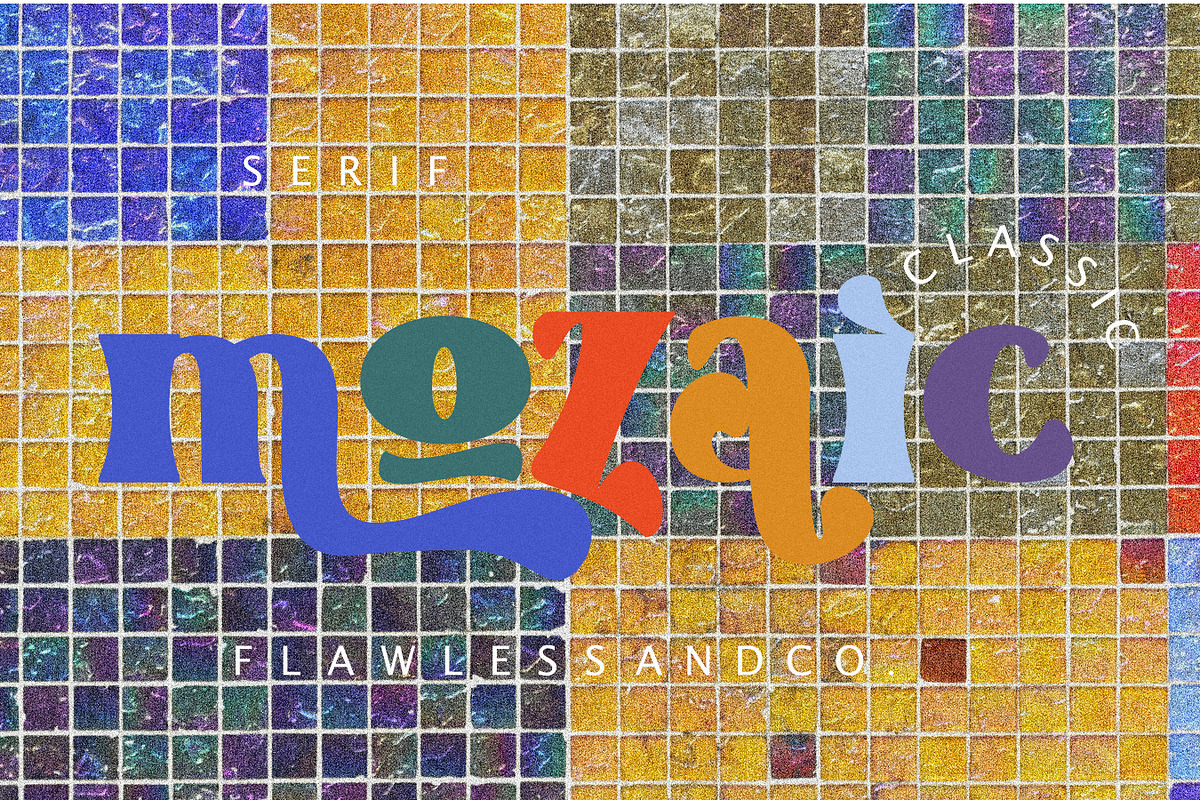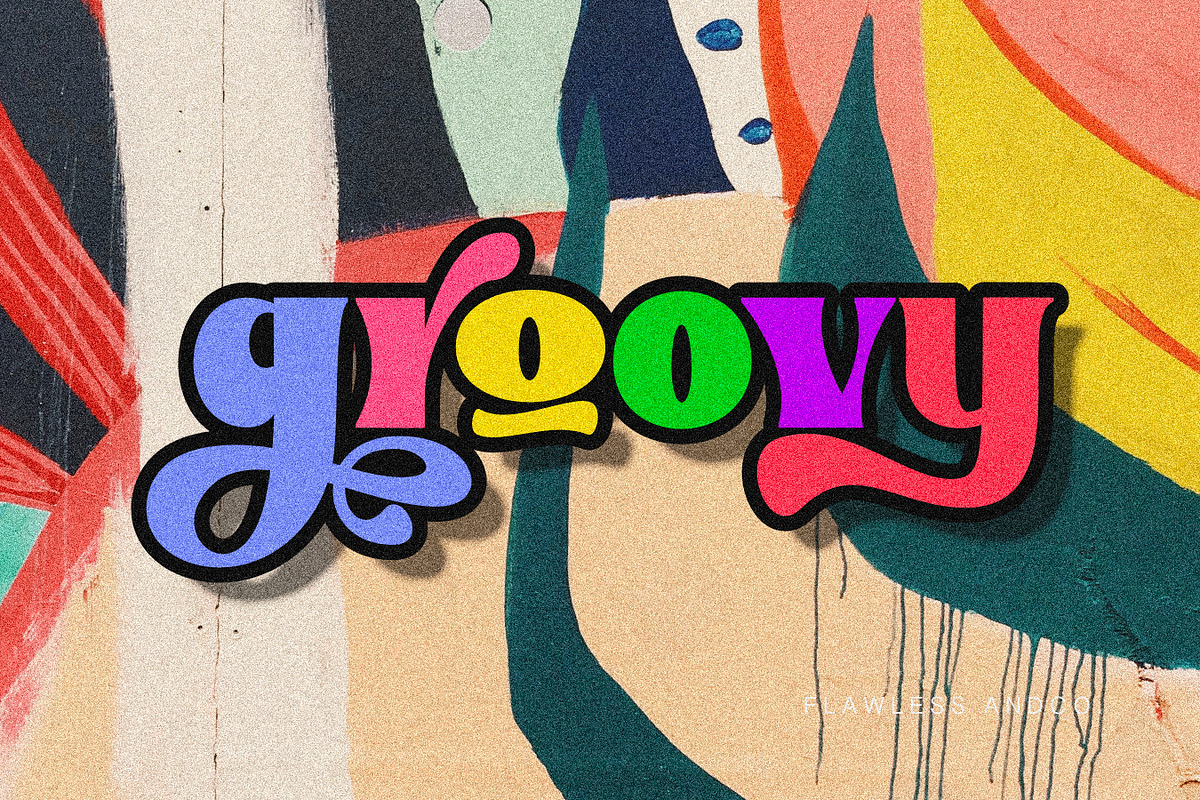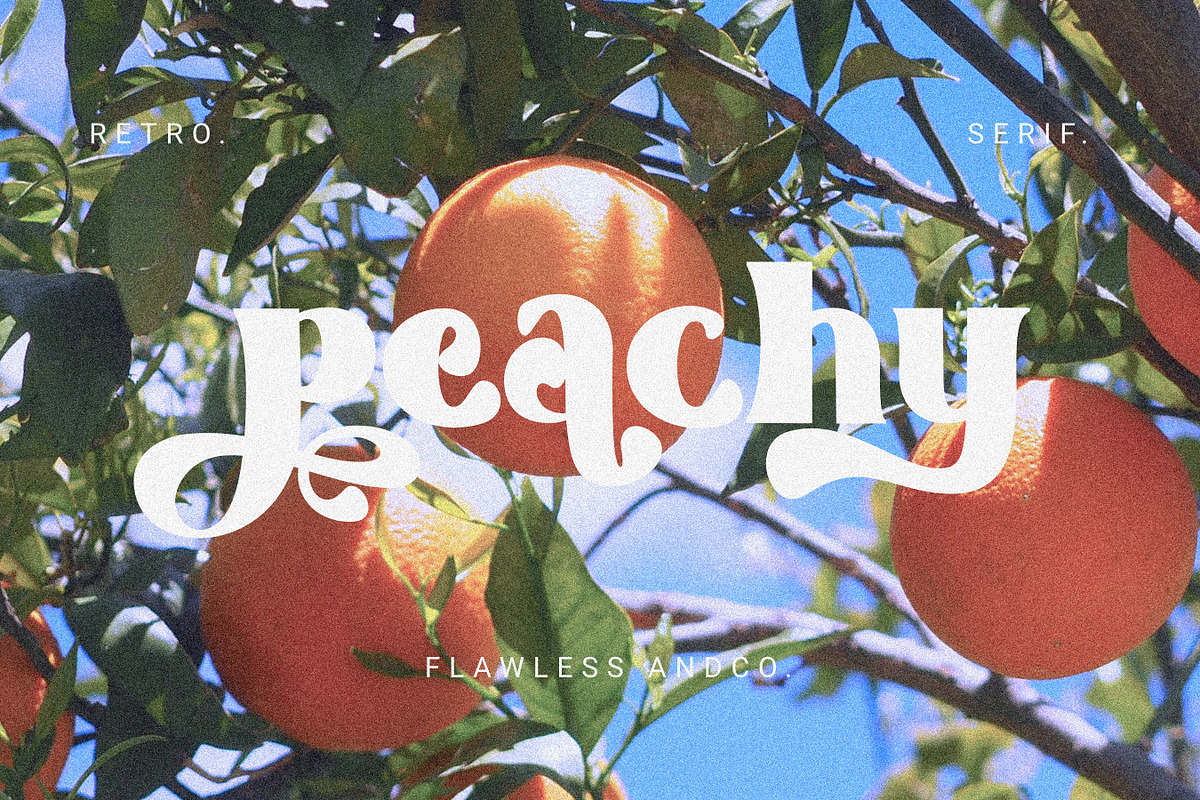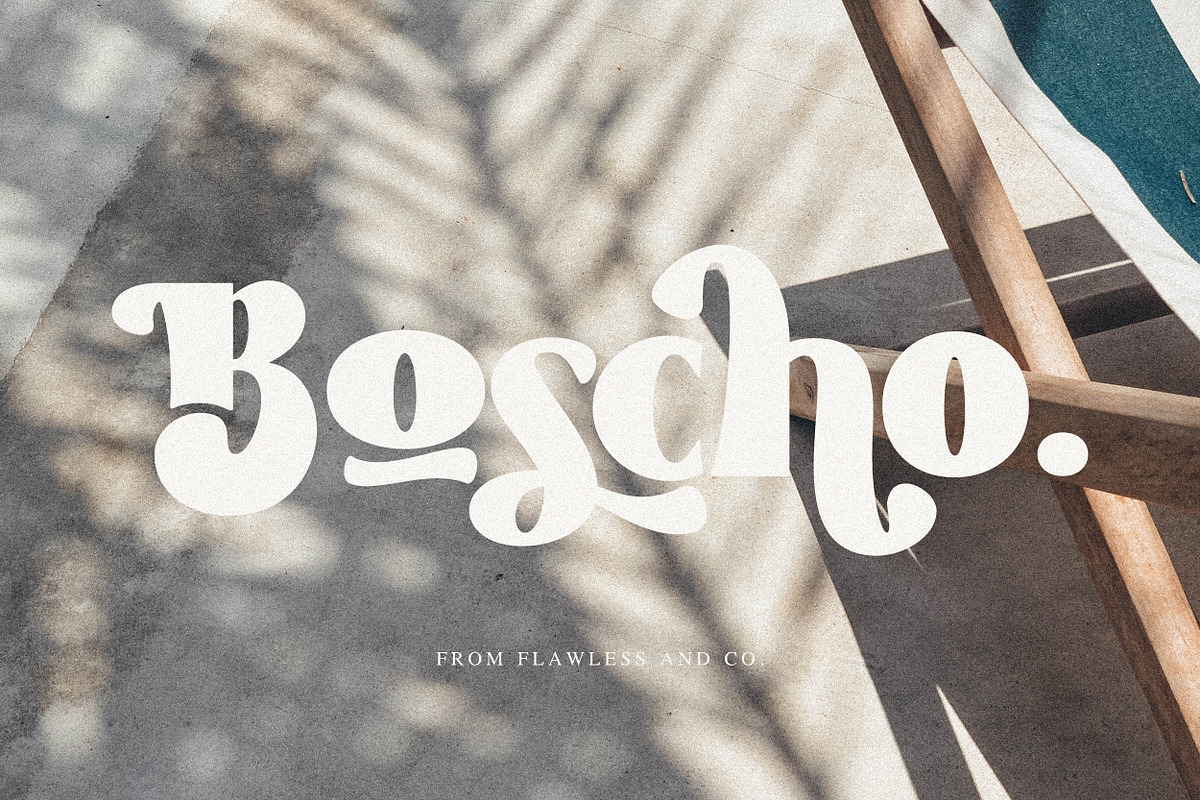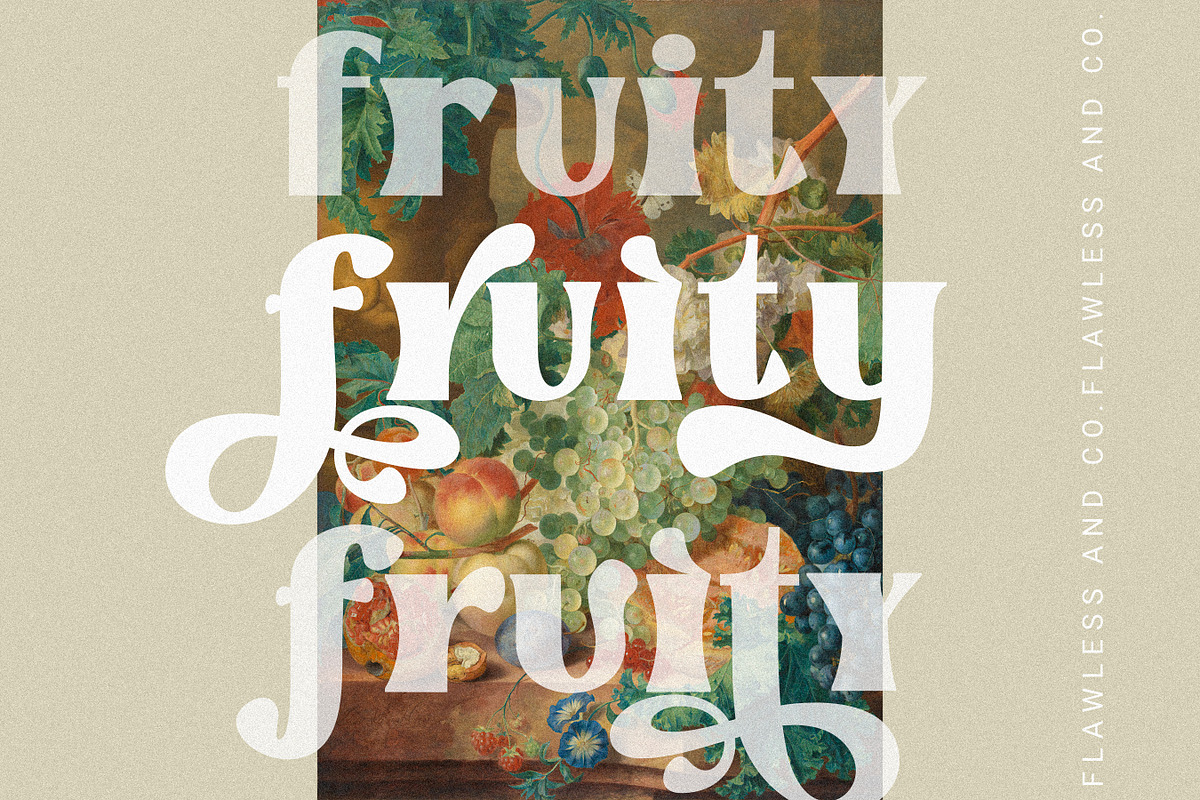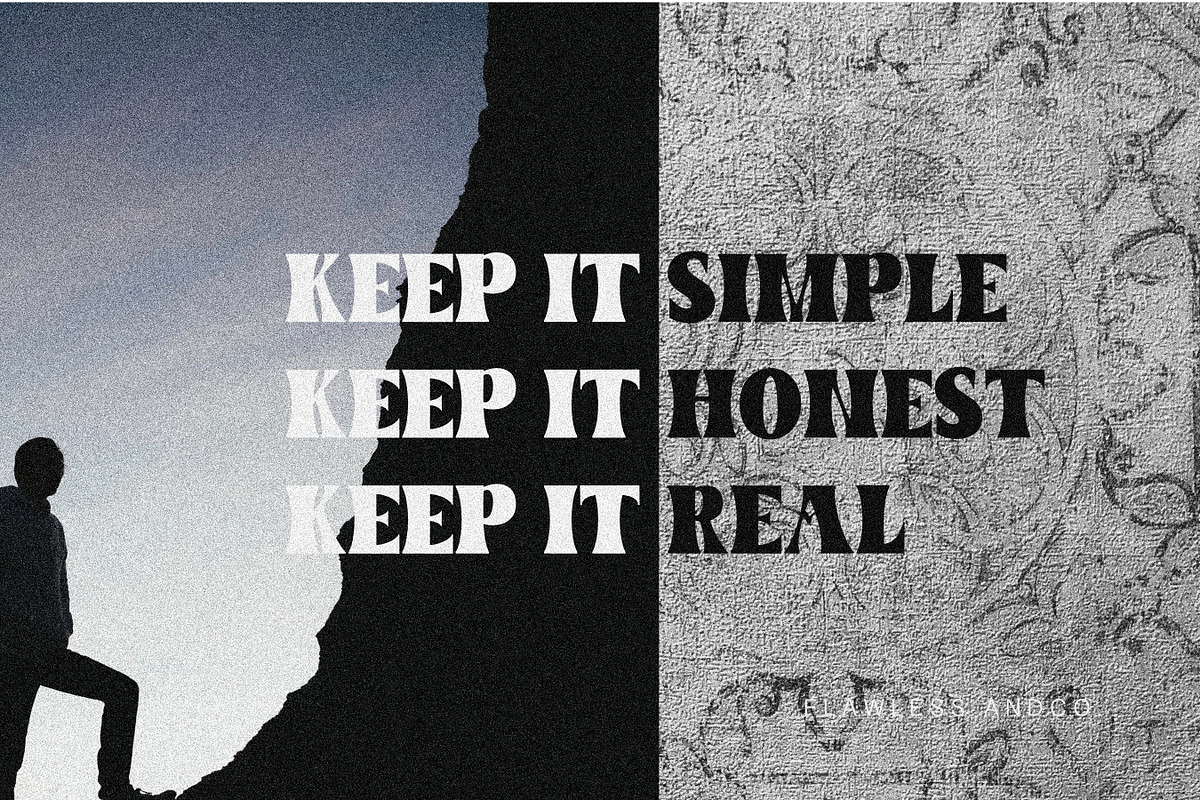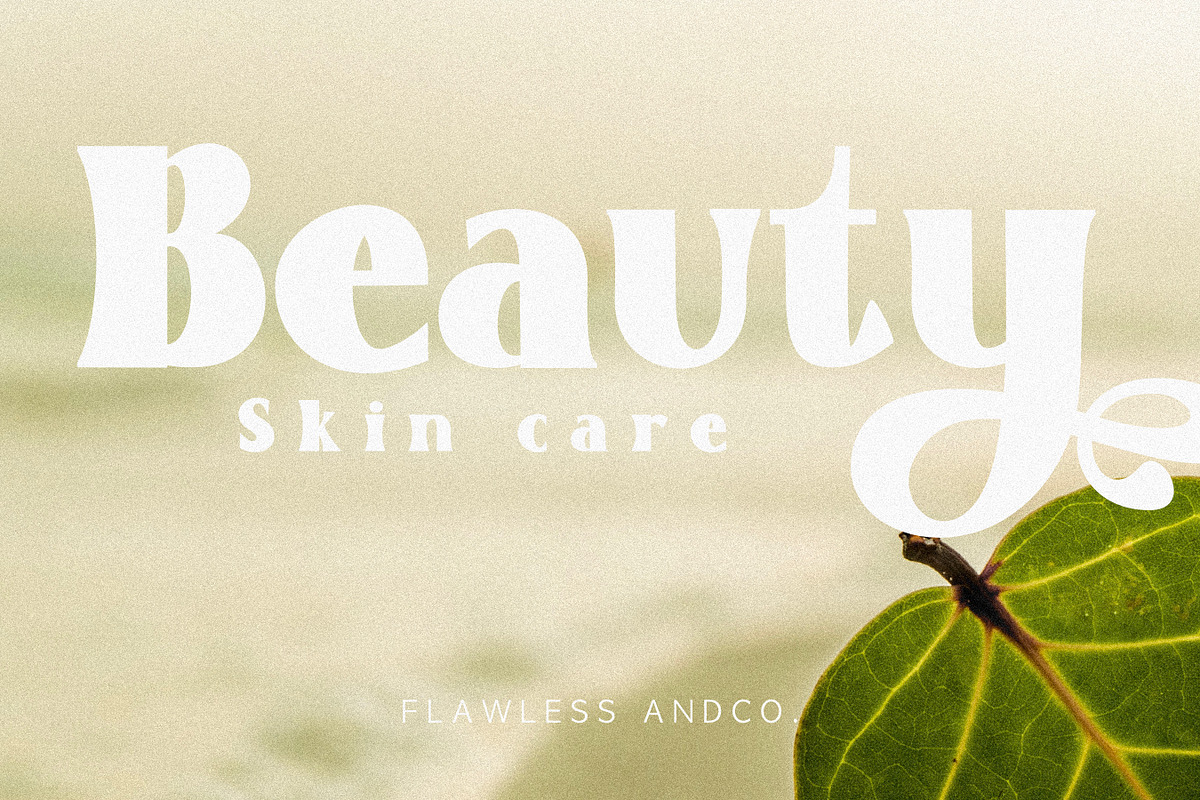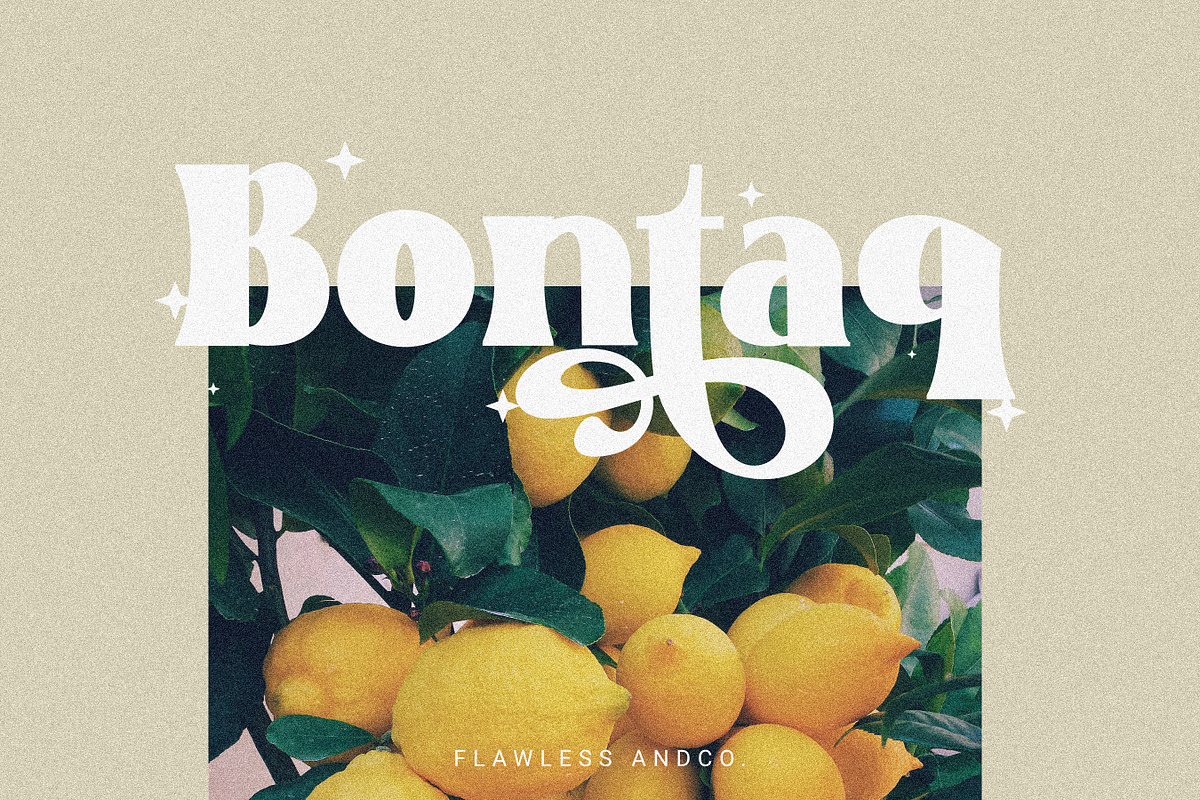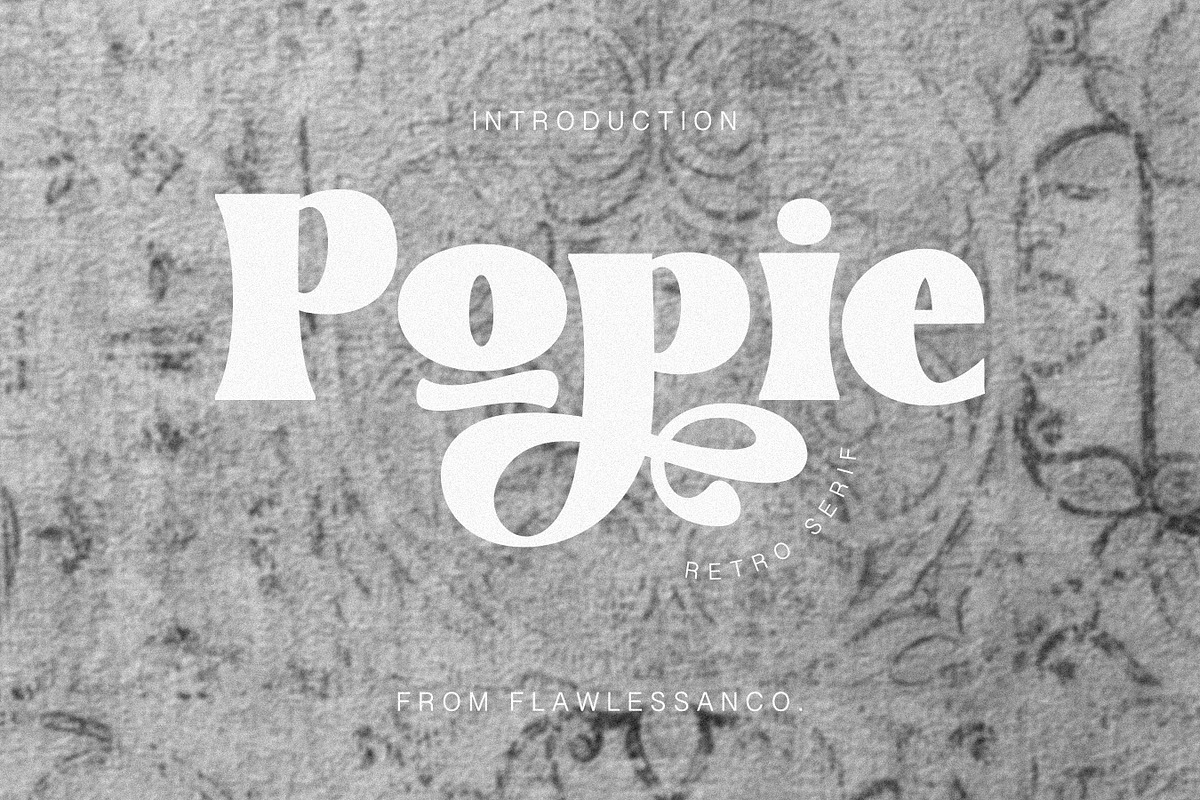
Boscho
Boscho - Modern Boho Retro Font
introducing our new "Boscho" Modern Retro with Fun and Elegant Style is perfect for branding, logos, invitation, master heads, and more.
Multilingual Uppercase alphabet A-Z Lowercase alphabet a-z Alternate Character Numbers 0-9 Some punctuation